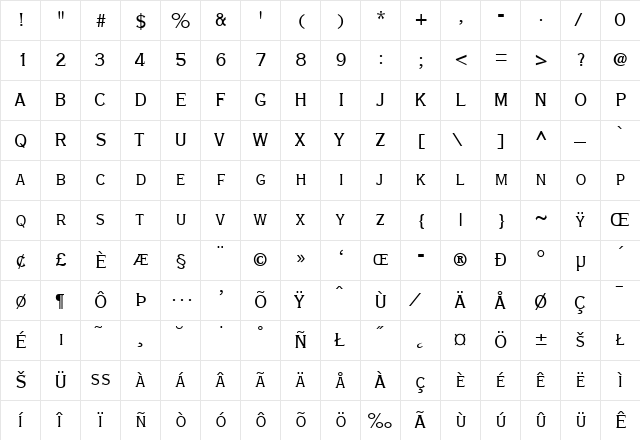
Copperplate-TwentyNineBC Regular
Design Context for Copperplate-TwentyNineBC Typeface
Copperplate-TwentyNineBC takes a measured approach to typography — its balanced proportions and neutral character make it a reliable workhorse for both digital and print work.